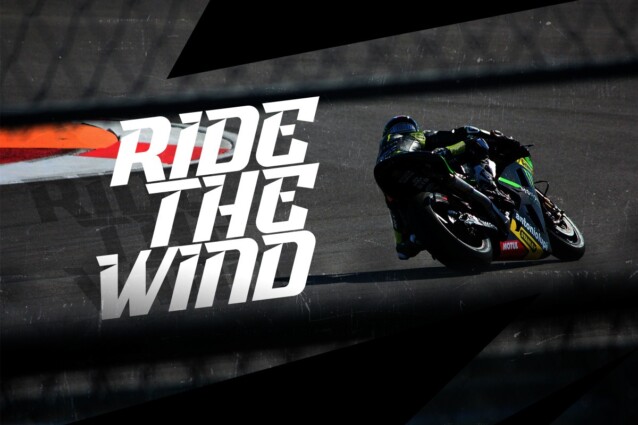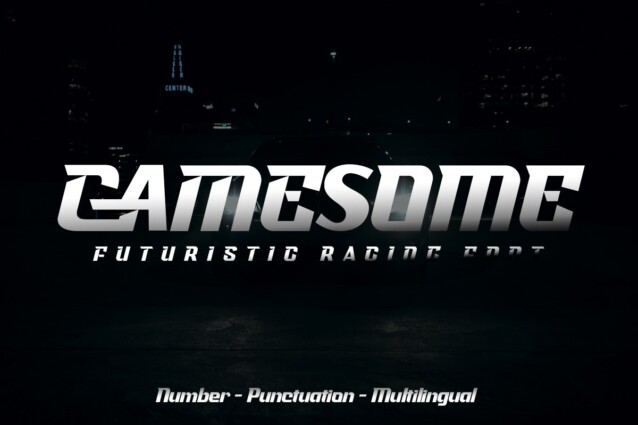
Gamesome Font
Gamesome Font is a modern futuristic font with a bold feel. The sharp spur on the top of letterforms, bold weight, and fully geometric represent strength, honor, and brave.
Speed up your pulse with Gamesome font available in 2 style. This all-caps font is perfect for sports, great for automotive, and looks cool for techno themes. You can apply this font for jerseys, decals, flags, logos, posters, magazines, packaging, and many more!